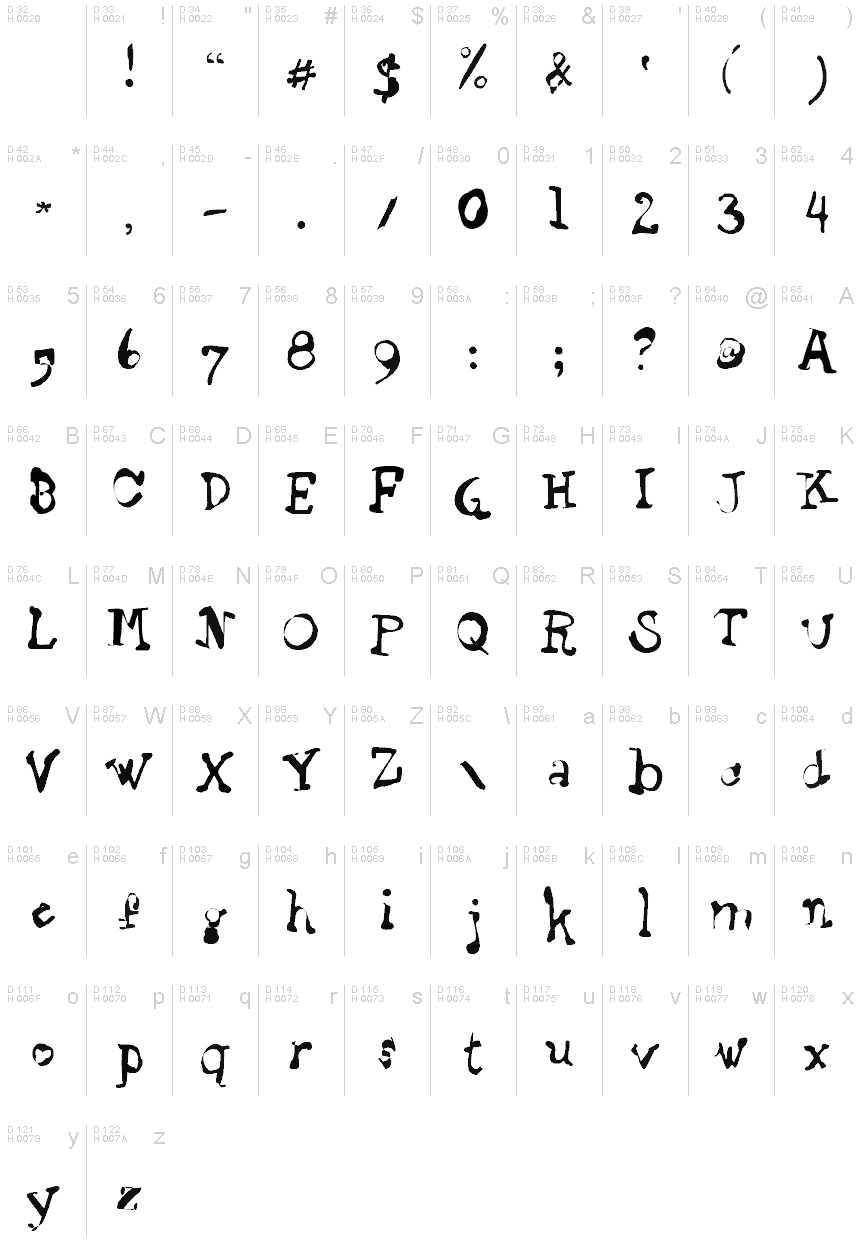
Staggering Bob
Staggering Bob emerges as a bold and unconventional display font, masterfully crafted by the imaginative Uddi Uddi. With its distorted style, Staggering Bob defies the norms of traditional typography, offering designers an aesthetic that is both striking and playful. Each character in this font dances with an irregular rhythm, making it an exceptional choice for projects that aim to stand out and captivate the audience.
The font's distinctive character shapes exude a dynamic energy that can inject life into branding, edgy advertising campaigns, artistic posters, or any creative endeavor that calls for a touch of whimsy and unconventionality. The deliberate distortion taps into a modern vibe that resonates with avant-garde and street-style sensibilities.
Staggering Bob is not only a testament to Uddi Uddi's innovative design approach but also a versatile asset in the toolkit of creatives looking to push boundaries and craft messages with impact. Its unique appeal lies in its ability to draw the eye and hold attention while maintaining legibility—an essential quality for any display typeface aiming to make a lasting impression.
The font's distinctive character shapes exude a dynamic energy that can inject life into branding, edgy advertising campaigns, artistic posters, or any creative endeavor that calls for a touch of whimsy and unconventionality. The deliberate distortion taps into a modern vibe that resonates with avant-garde and street-style sensibilities.
Staggering Bob is not only a testament to Uddi Uddi's innovative design approach but also a versatile asset in the toolkit of creatives looking to push boundaries and craft messages with impact. Its unique appeal lies in its ability to draw the eye and hold attention while maintaining legibility—an essential quality for any display typeface aiming to make a lasting impression.